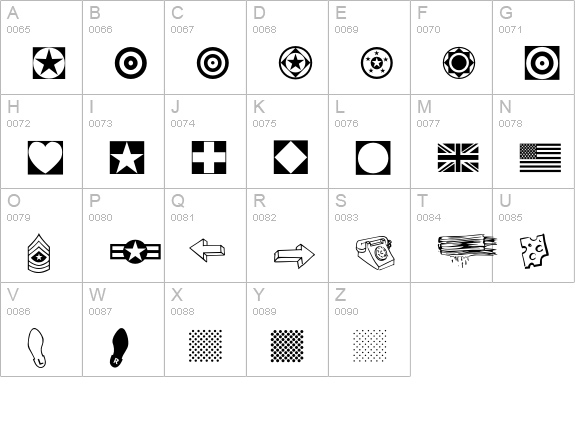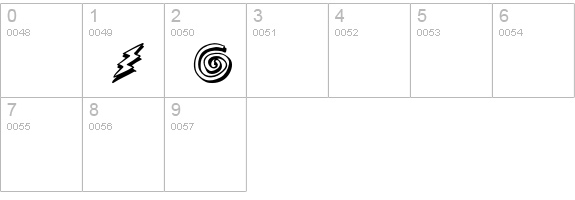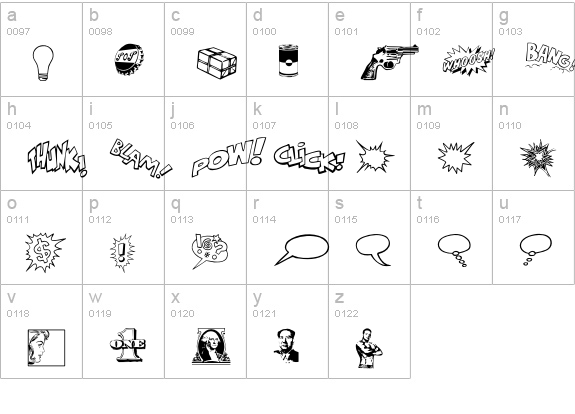
P22PopArt-Extras font is a vibrant and dynamic typeface that captures the essence of the Pop Art movement. With its bold and playful design, this font is perfect for creating eye-catching and attention-grabbing designs. Featuring a wide range of unique and quirky symbols, P22PopArt-Extras font allows you to add a touch of artistic flair to your projects. From speech bubbles and thought clouds to comic book-inspired graphics, this font offers endless possibilities for creativity. One of the best things about P22PopArt-Extras font is that it is free! That's right, you can freely download this amazing font at FontsMarket.com. Whether you're a professional designer or a budding artist, this font will surely become your go-to choice for adding a pop of excitement to your work. So why wait? Let your creativity shine and download P22PopArt-Extras font today. With its bold and expressive characters, it's sure to make a lasting impression on your audience. Don't miss out on this incredible opportunity to enhance your designs with a free and versatile font.